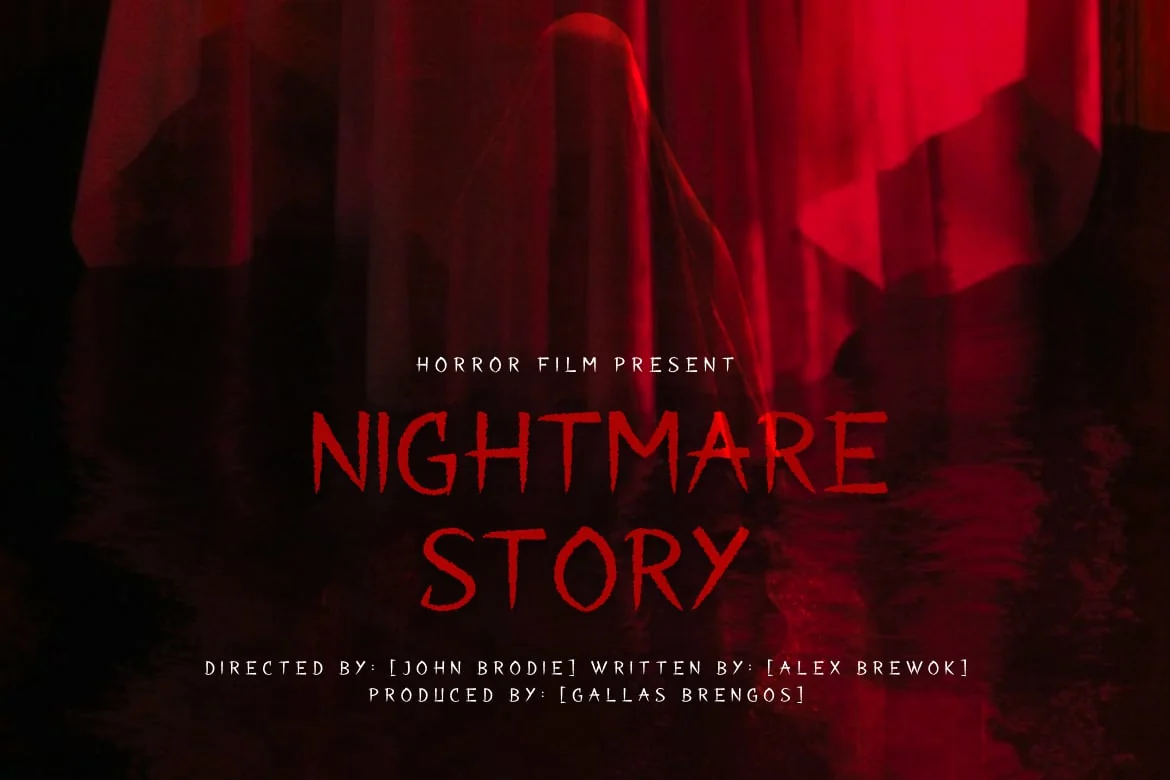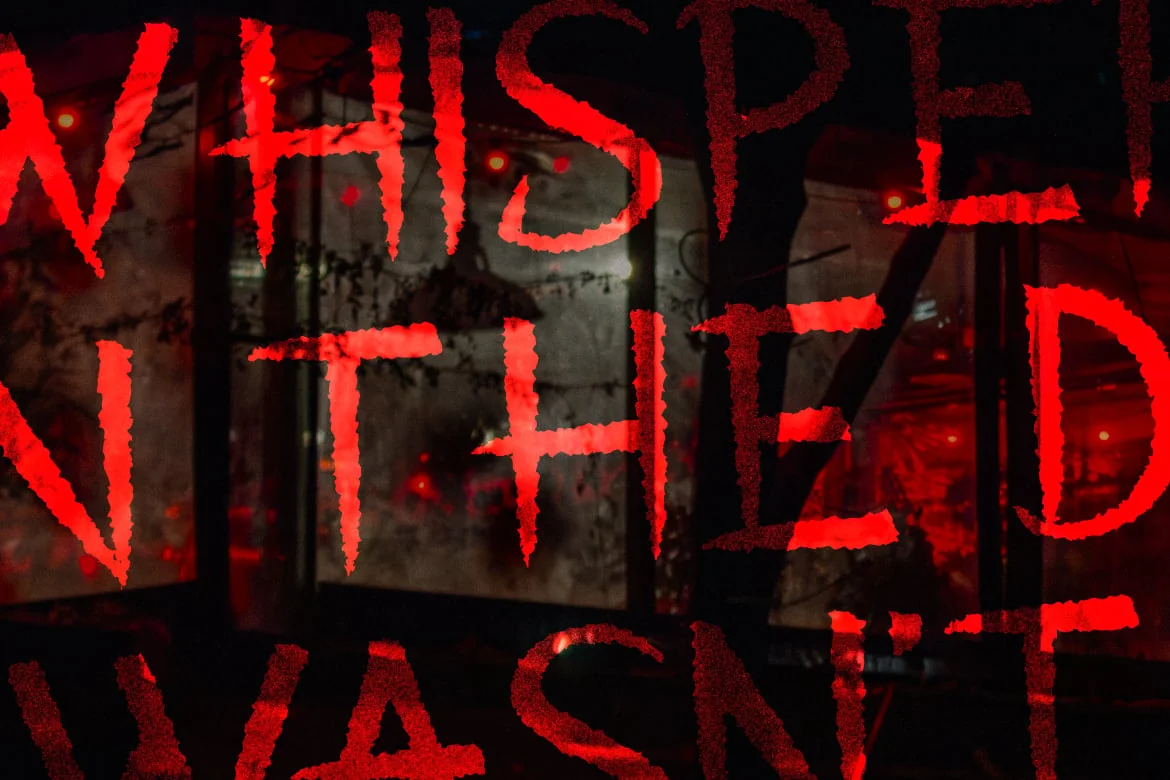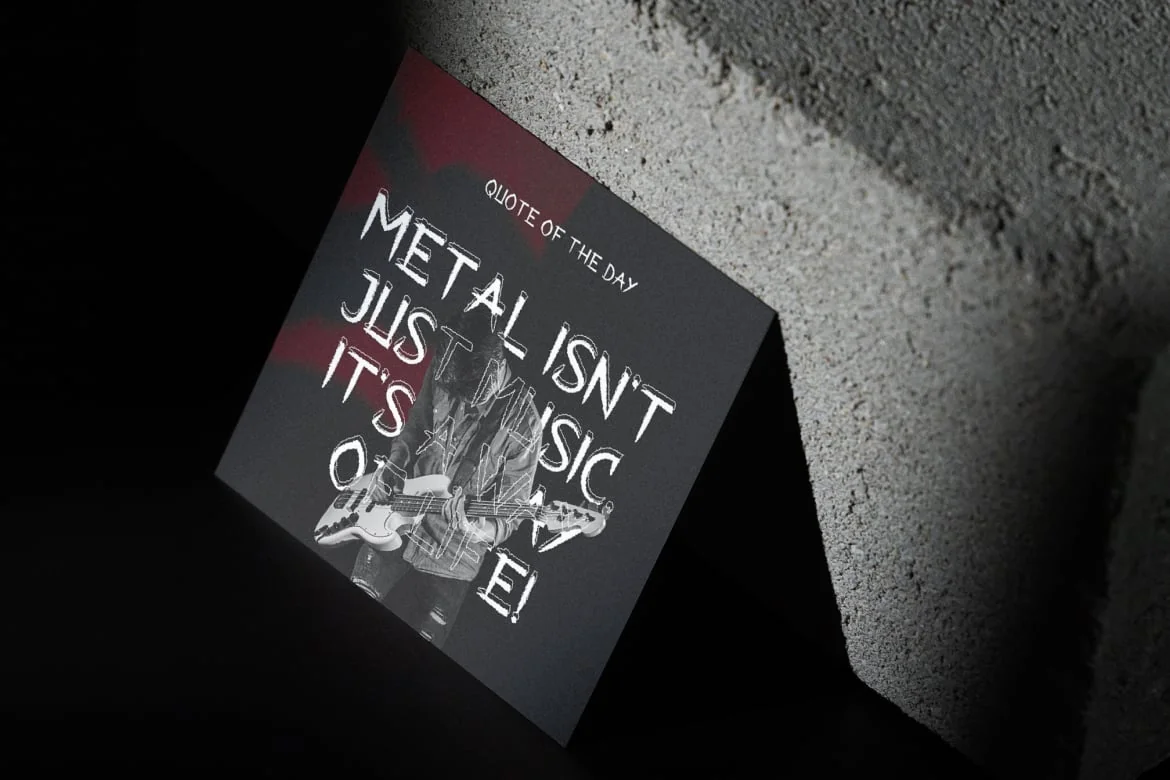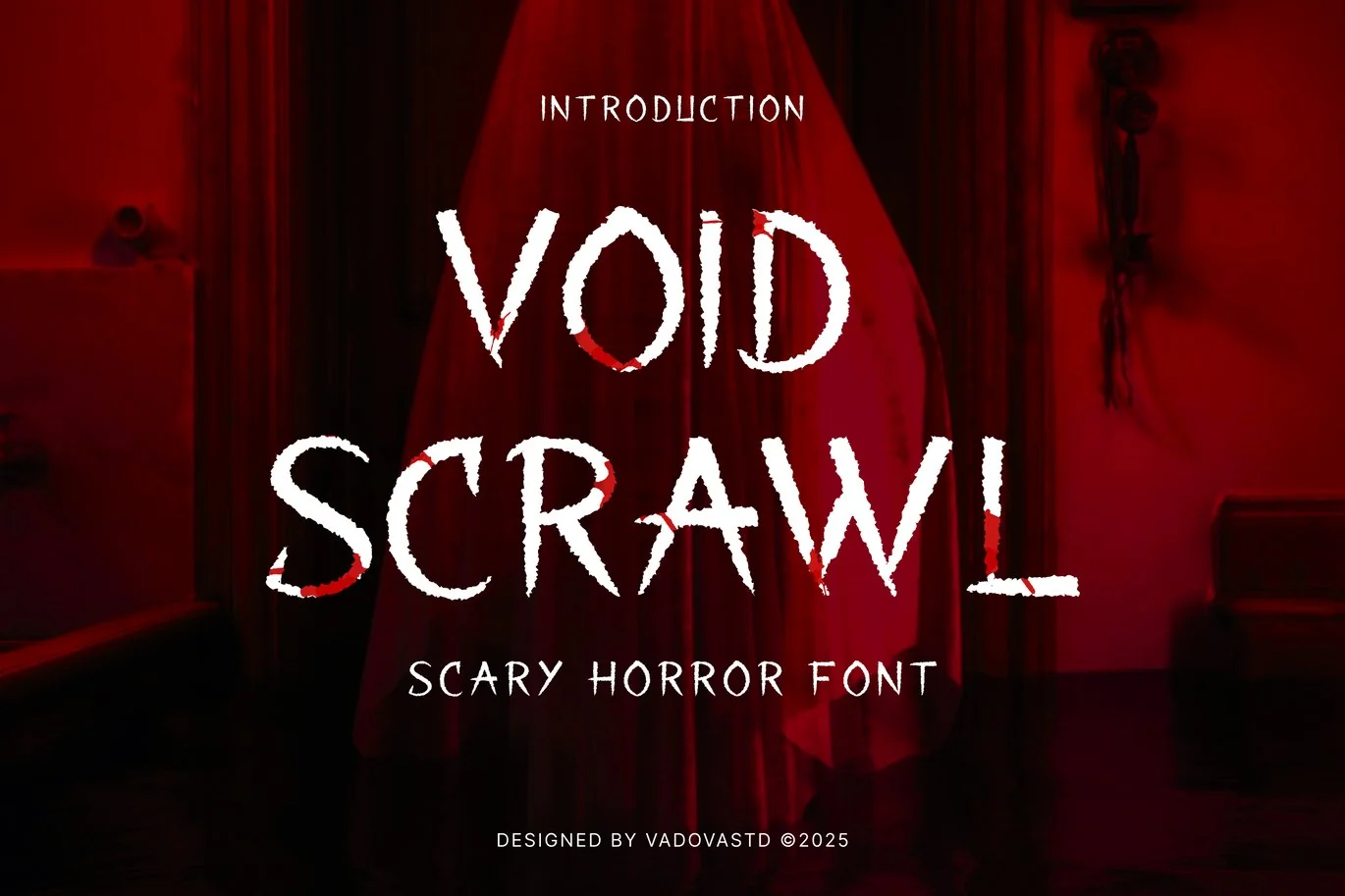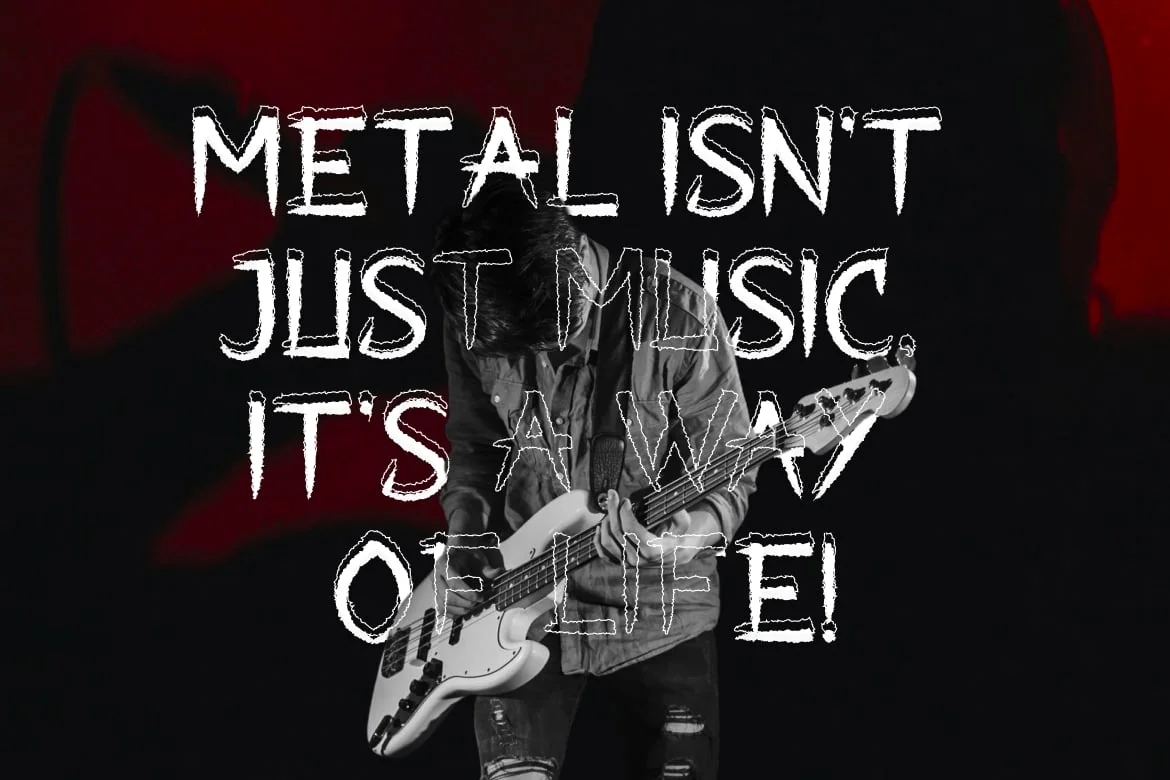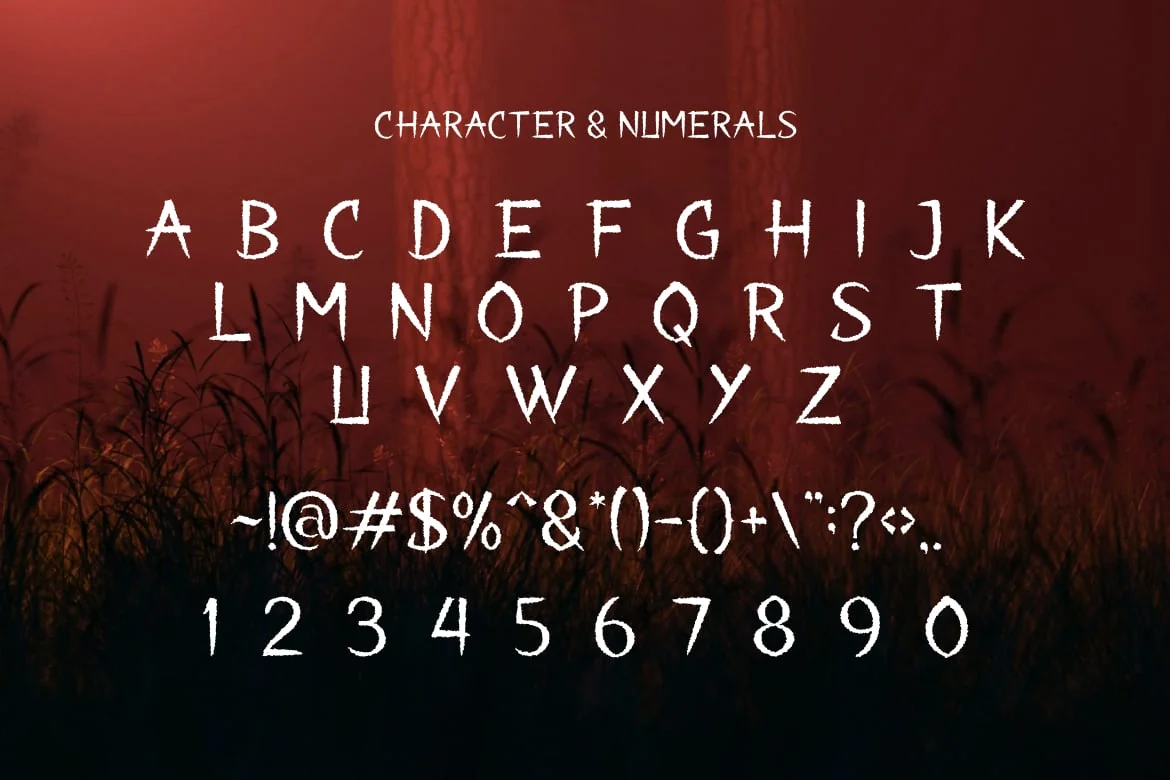
Void Scrawl Scary Horror Font
Elevate your designs with Void Scrawl Scary Horror Font, a chilling horror typeface designed to evoke fear and unease. With its jagged, hand-drawn strokes and eerie, bloodstained details, this font is perfect for horror movie posters, Halloween invitations, dark-themed branding, and spine-tingling book covers. The irregular, scratched edges create a sense of raw terror, making Void Scrawl an ideal choice for projects that demand a haunting and sinister atmosphere. Let your designs crawl into the depths of darkness with this unsettling and nightmarish font.